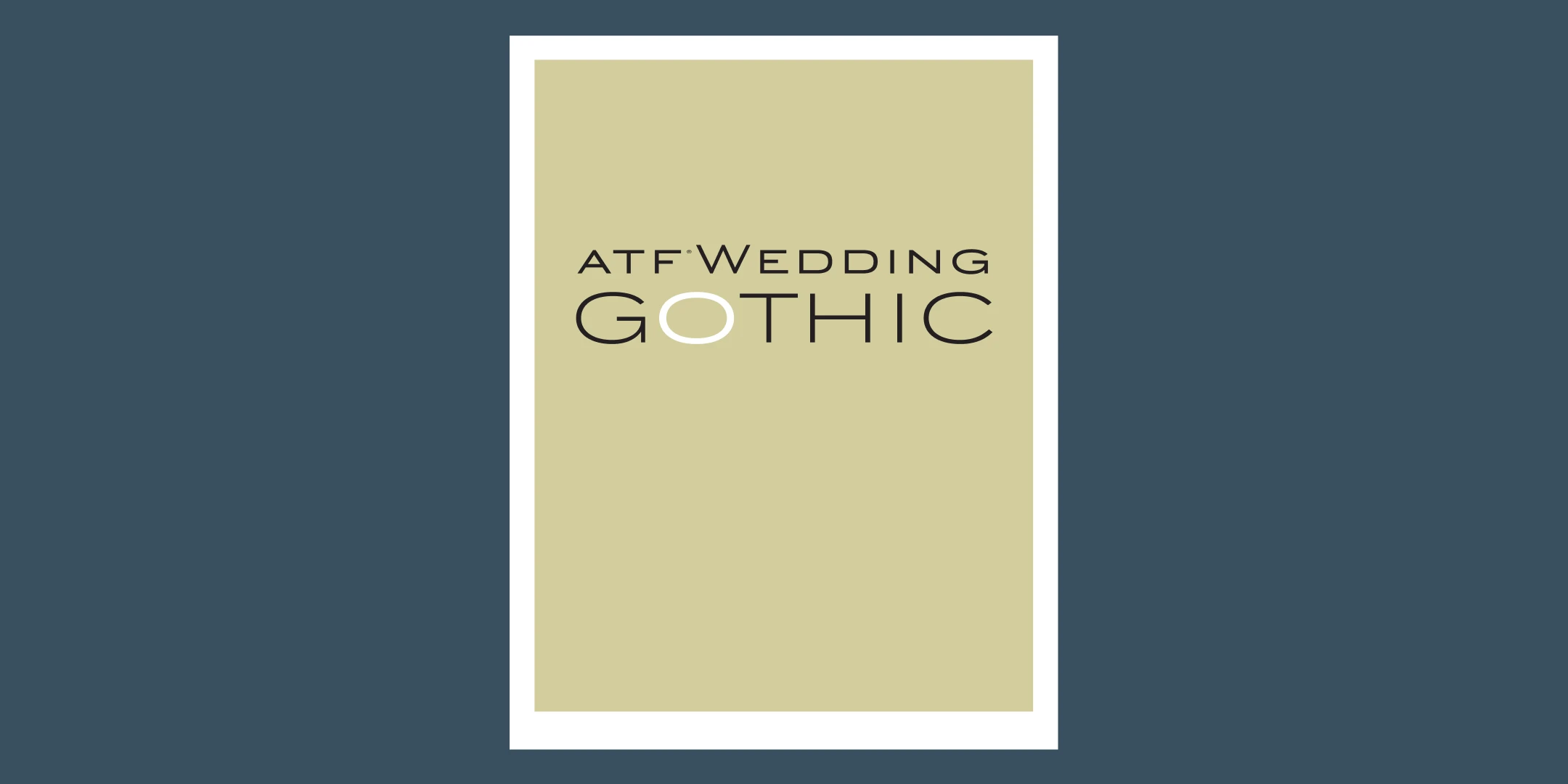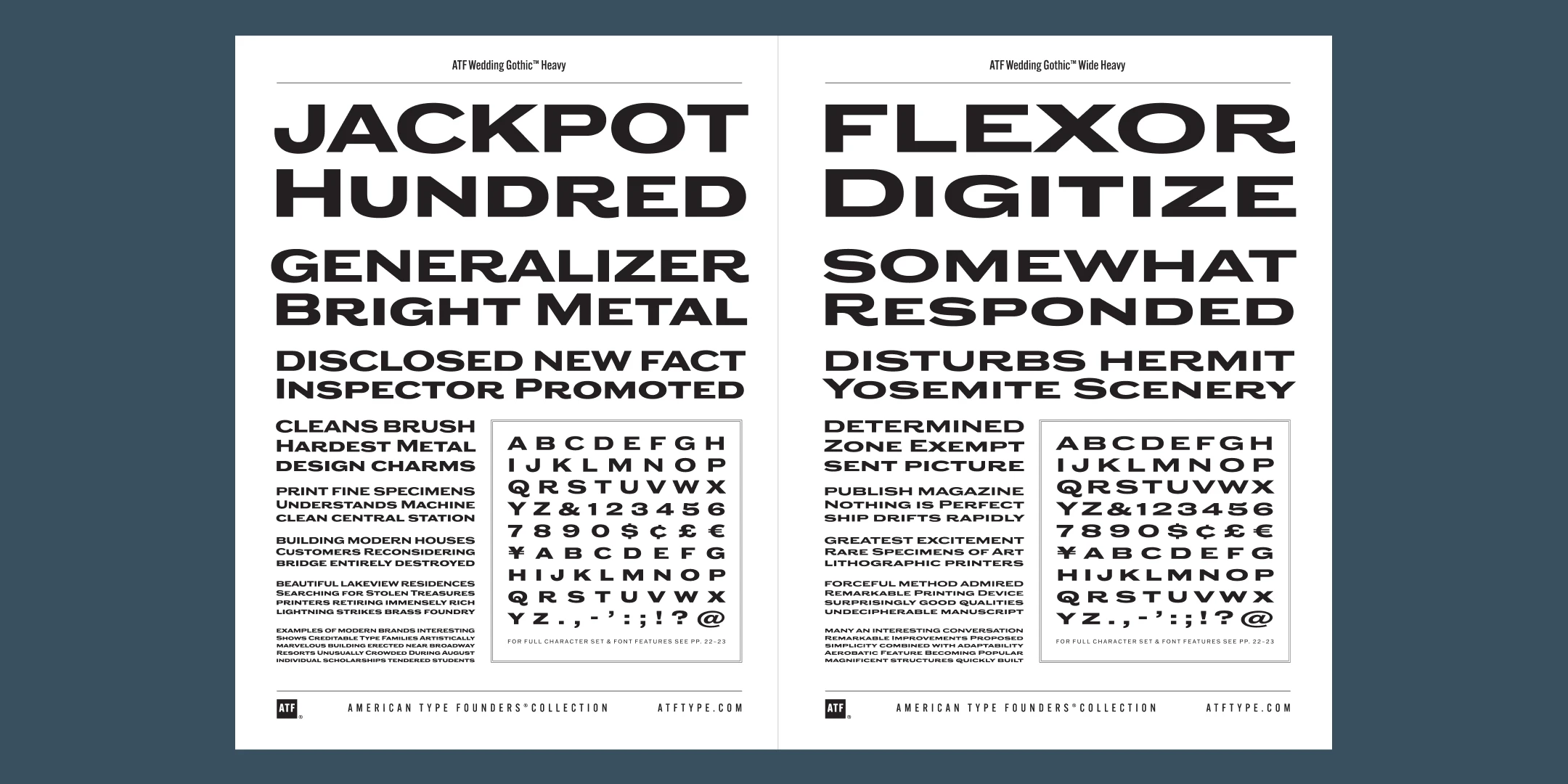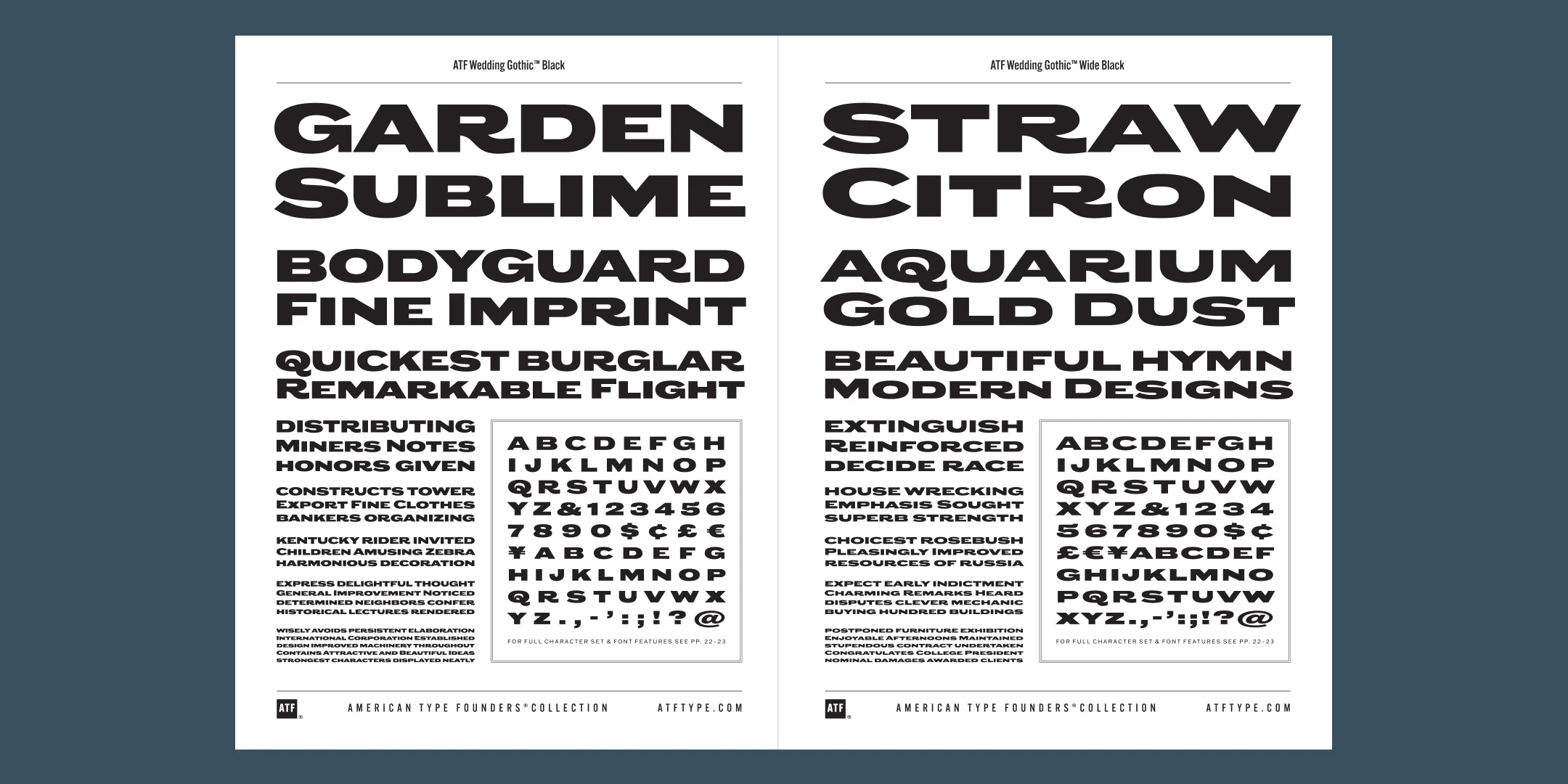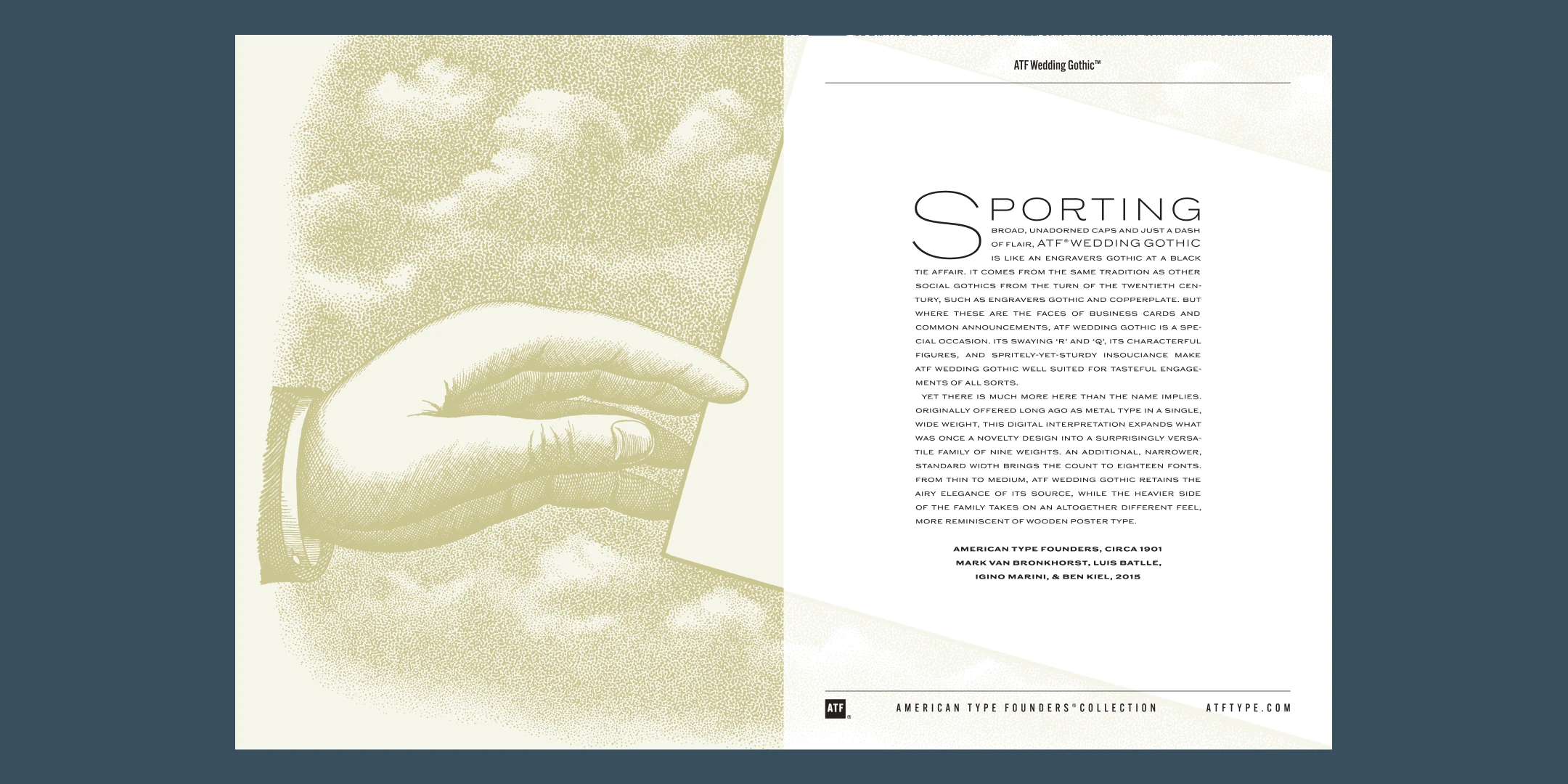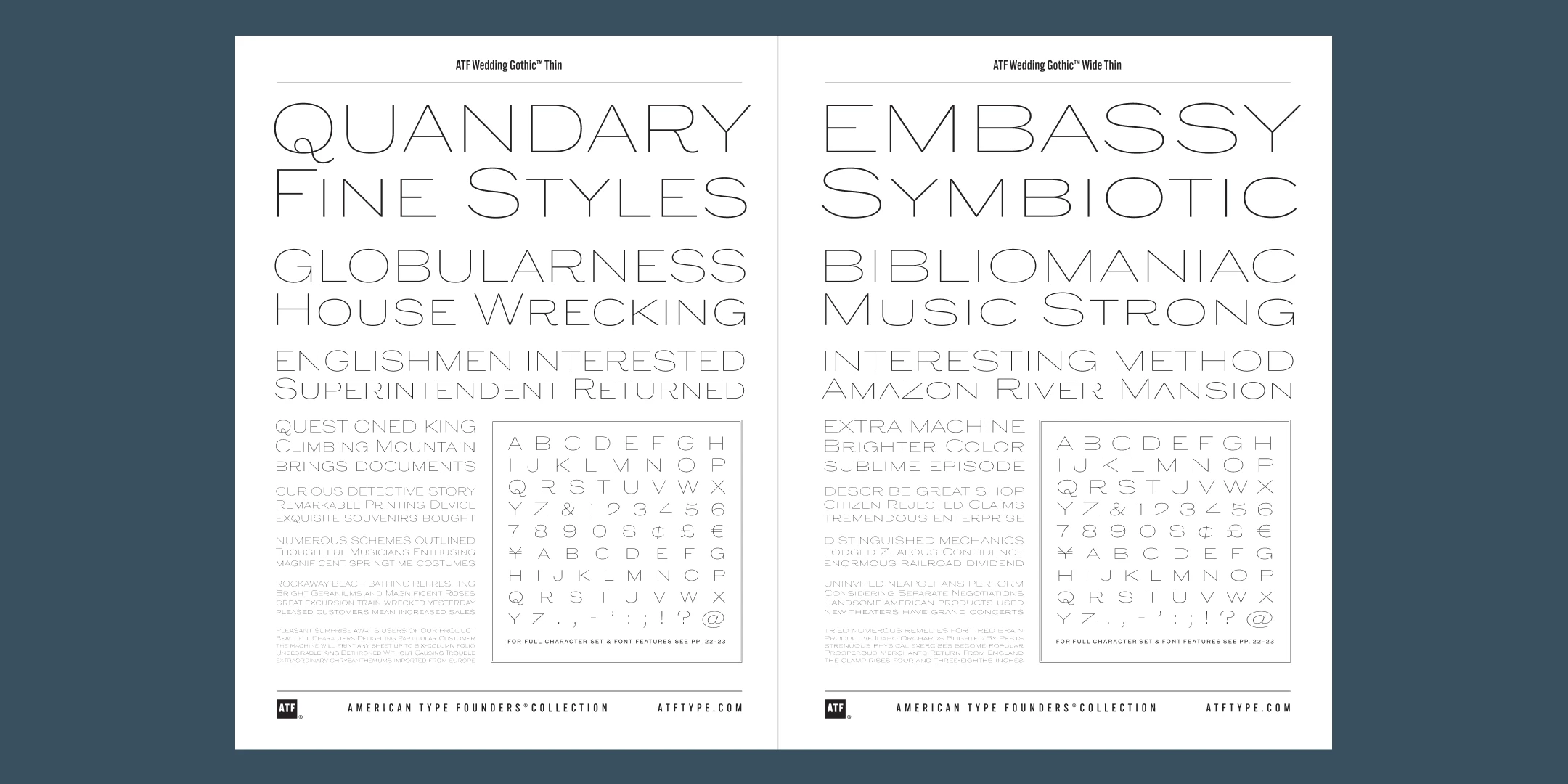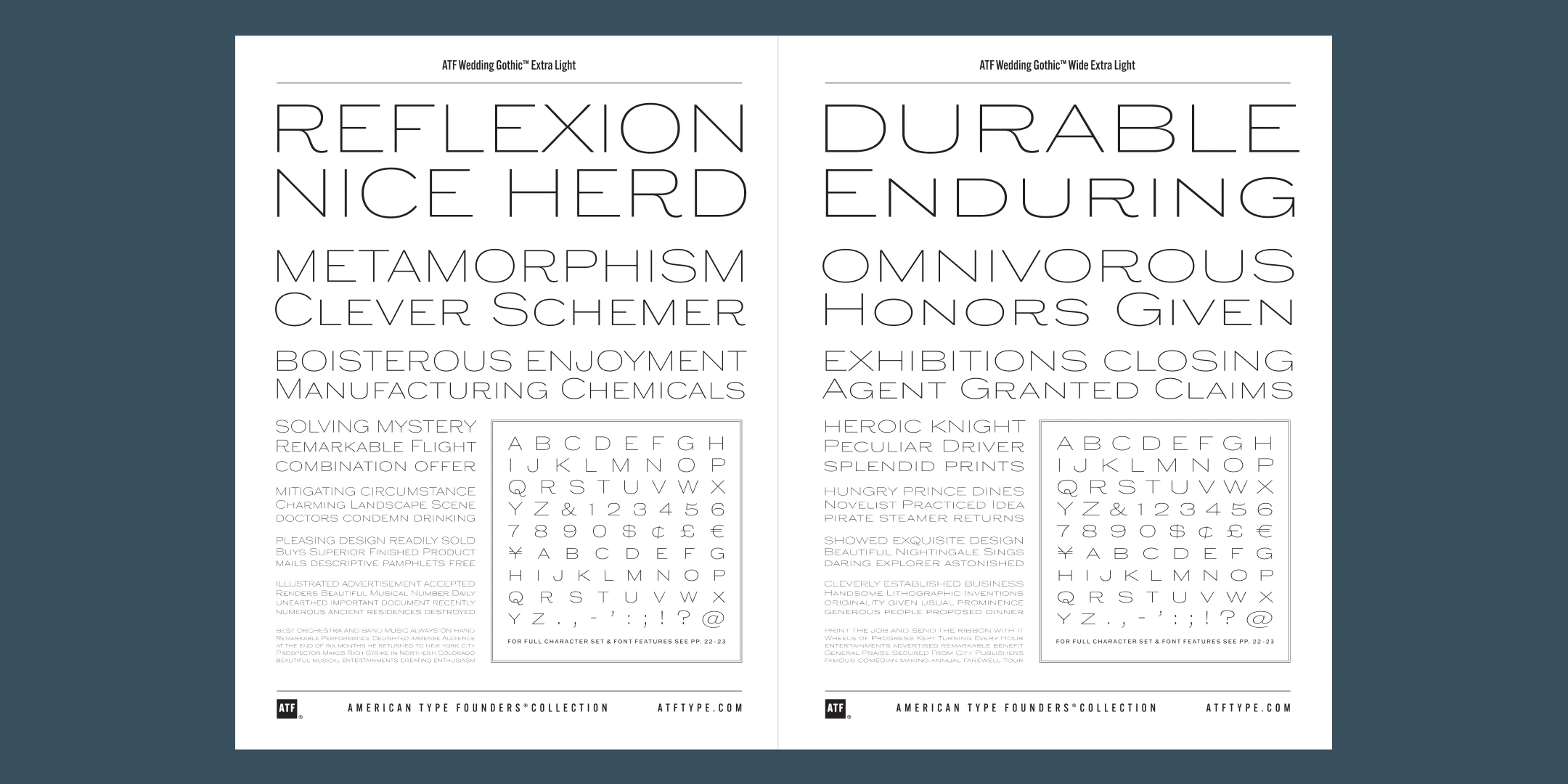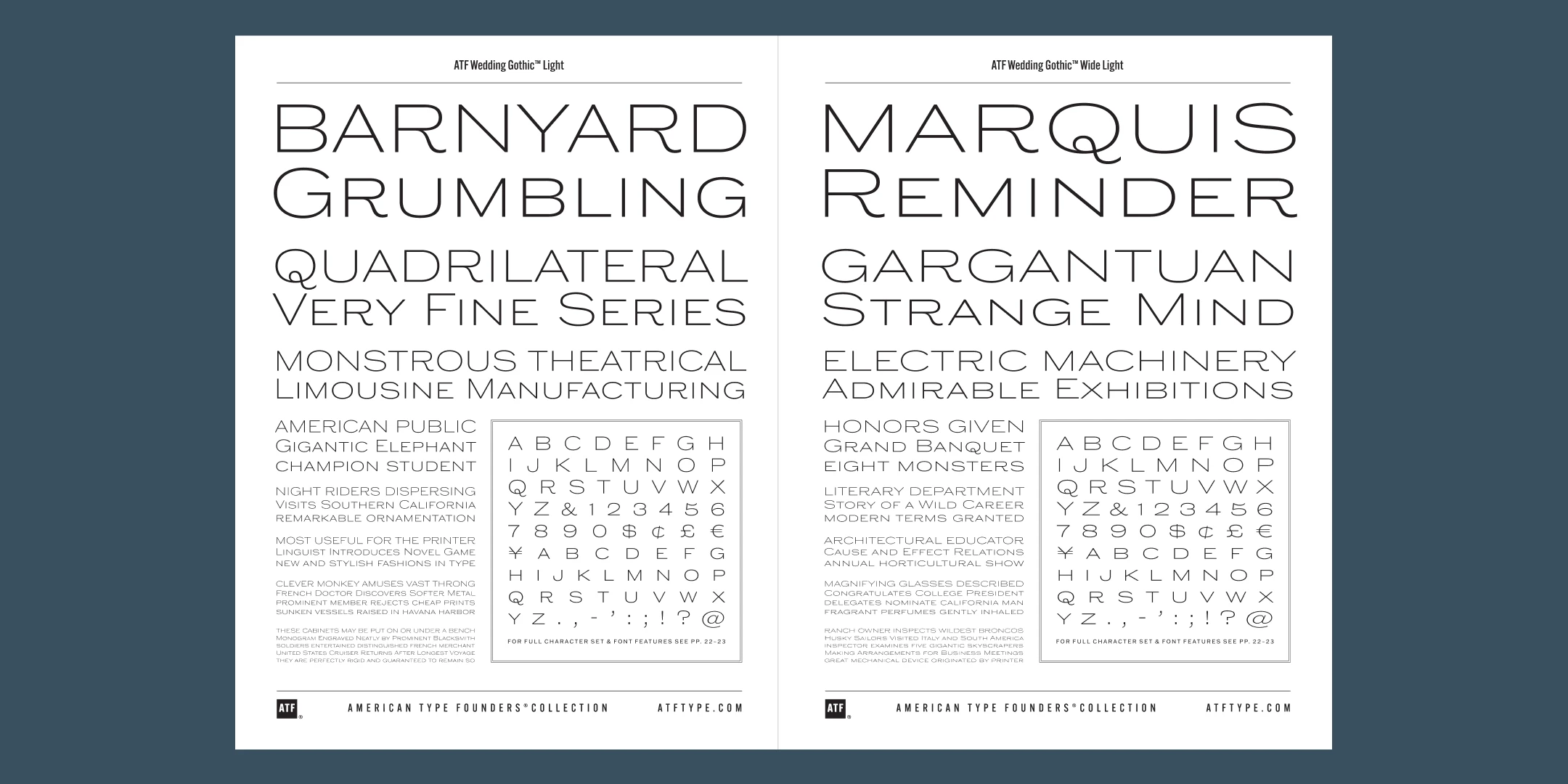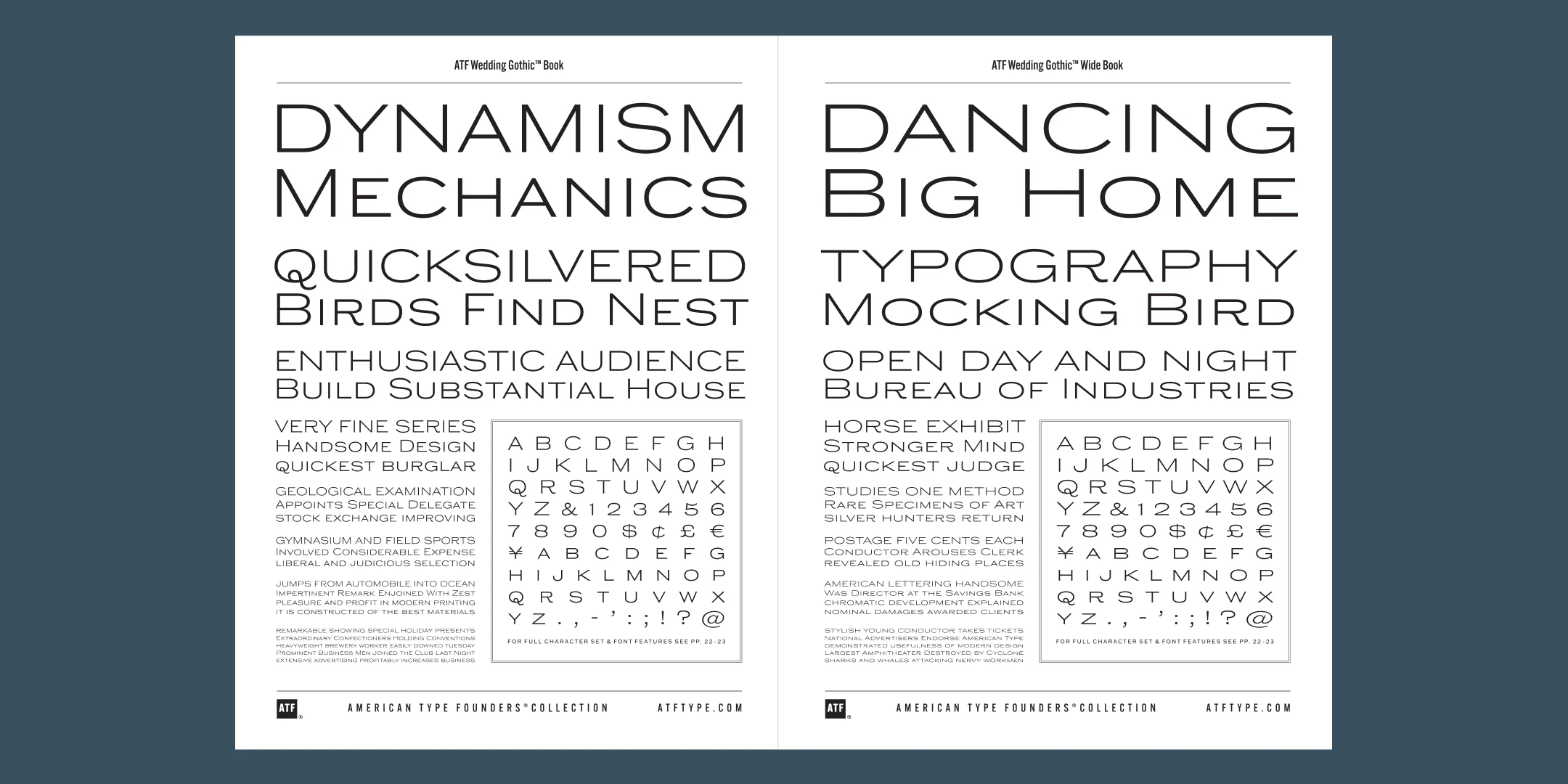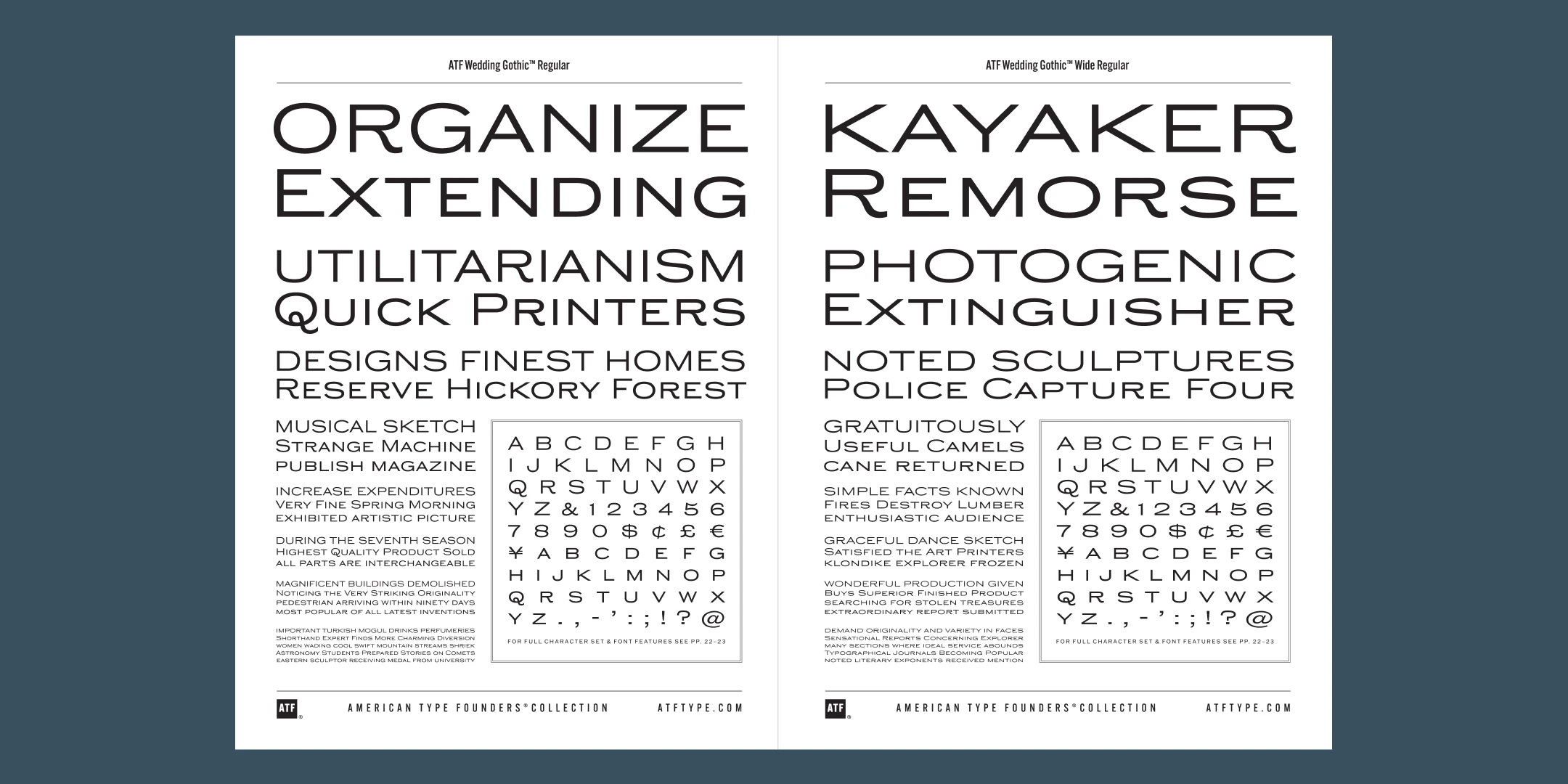
Wedding Gothic font by American Type Founders Collection — the words “ATF WEDDING” in thin sans serif caps above “GOTHIC” in larger sans serif caps, with the letter O in “GOTHIC” outlined in white.
Wedding Gothic font by American Type Founders Collection — a large outlined capital S followed by the word PORTING in sans serif capitals, with a stippled image of a hand holding a ring on the left.
Wedding Gothic font by American Type Founders Collection — two columns of sans serif uppercase text, the left column showing “QUANDARY FINE STYLES GLOBULARNESS HOUSE WRECKING ENGLISHMEN SUPERINTENDENT RETURNED” and the right column showing “EMBASSY SYMBIOTIC BIBLIOMANIAC MUSIC STRONG INTERESTING METHOD AMAZON RIVER MANSION”, with smaller text and character sets below each.
Wedding Gothic font by American Type Founders Collection — two columns of sans serif uppercase text in various sizes, with a full character set shown in a box at the bottom of each column
Wedding Gothic font by American Type Founders Collection — two columns of sans serif uppercase text, one labeled “Light” and the other “Wide Light”, with character grids below each.
Wedding Gothic font by American Type Founders Collection — two columns of sans serif upright text, with the left column showing a book weight and the right column showing a wide book weight, both displaying pangrams and character sets.
Wedding Gothic font by American Type Founders Collection — two white panels of upright sans serif text, one with “ORGANIZE EXTENDING” and the other with “KAYAKER REMORSE” in large letters, with smaller text and character sets below
Wedding Gothic font by American Type Founders Collection — two columns of sans serif upright text, one labeled “Medium” and the other “Wide Medium,” displaying words, phrases, and character sets including uppercase and lowercase letters, numbers, and symbols.
Wedding Gothic font by American Type Founders Collection — two columns of sans serif text in varying sizes, with the left column labeled “ATF Wedding Gothic Bold” and the right column “ATF Wedding Gothic Wide Bold”, both showing character sets and sample text.
Wedding Gothic font by American Type Founders Collection — two columns of sans serif text, one labeled “Heavy” and the other “Wide Heavy”, each showing example words and a character set
Wedding Gothic font by American Type Founders Collection — two columns of sans serif text, one labeled “Black” and the other “Wide Black”, showing various words, phrases, and character sets including uppercase letters, numbers, and symbols.
Wedding Gothic font by American Type Founders Collection — a specimen showing uppercase, lowercase, figures, and symbols in an upright sans serif, with a section for features like small caps and fractions.
Wedding Gothic Font Family
Wedding Gothic is an engravers gothic sans serif font family. It gives a vintage look and will take your typography from an airy elegance to a bombastic shout.
Yet there is much more here than the name implies. Originally offered long ago as metal type in a single, wide weight, this digital interpretation expands what was once a novelty design into a surprisingly versatile family of nine weights. An additional, narrower, standard width brings the count to eighteen fonts. From Thin to Medium, ATF Wedding Gothic retains the airy elegance of its source, while the heavier side of the family takes on an altogether different feel, more reminiscent of wooden poster type.
Mark Van Bronkhorst, Luis Batlle, Igino Marini, & Ben Kiel